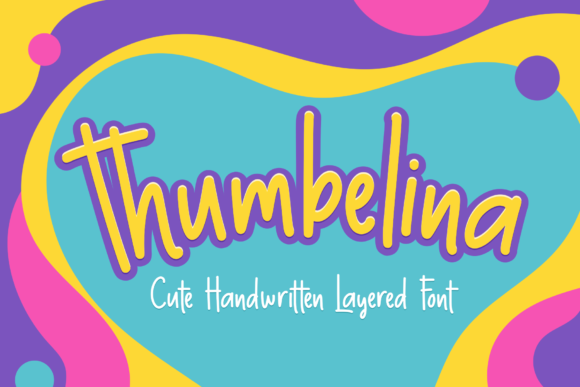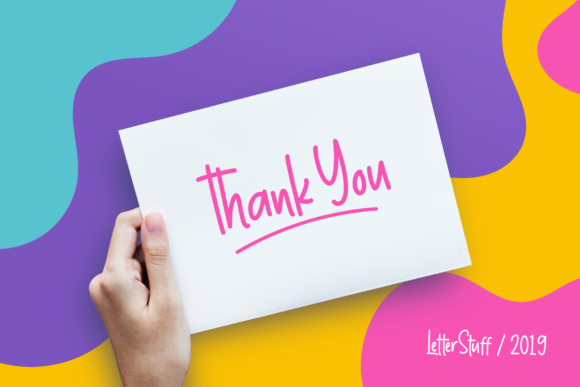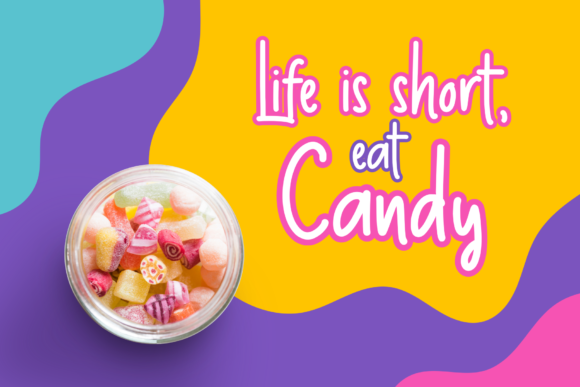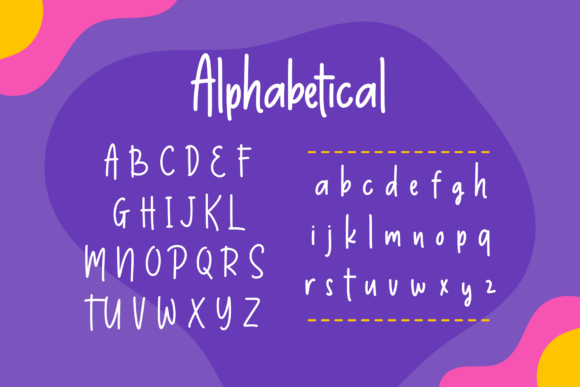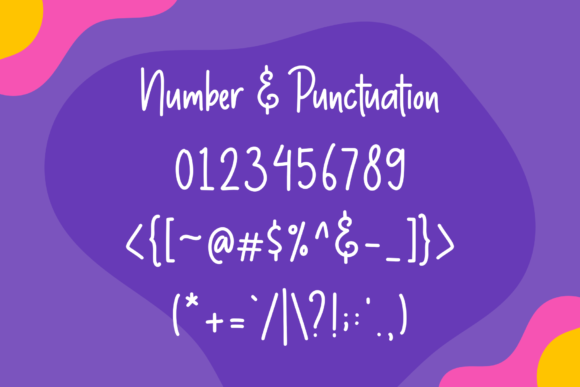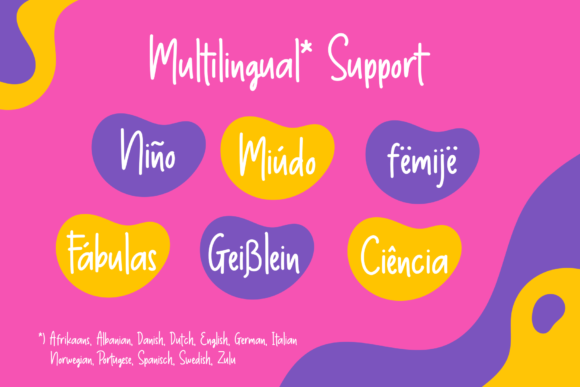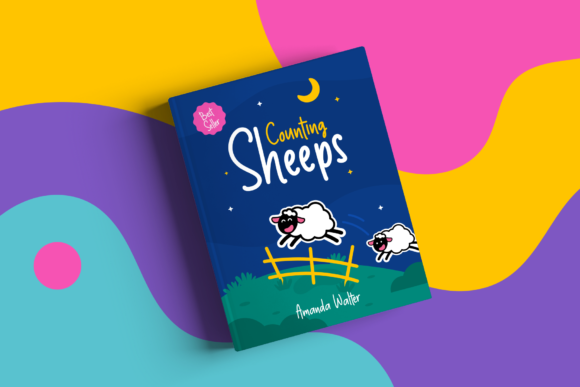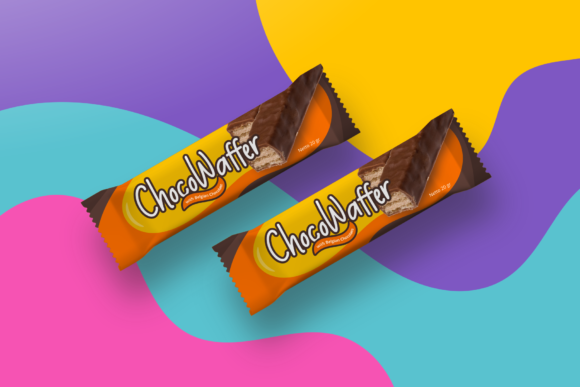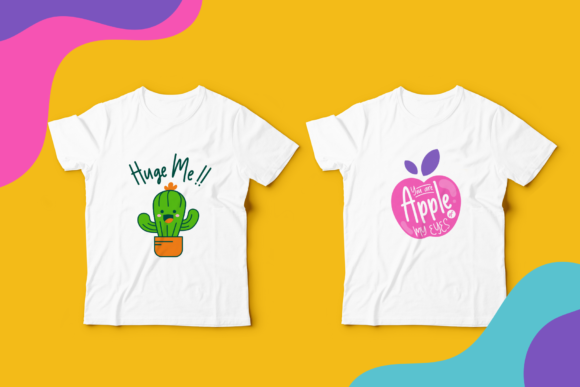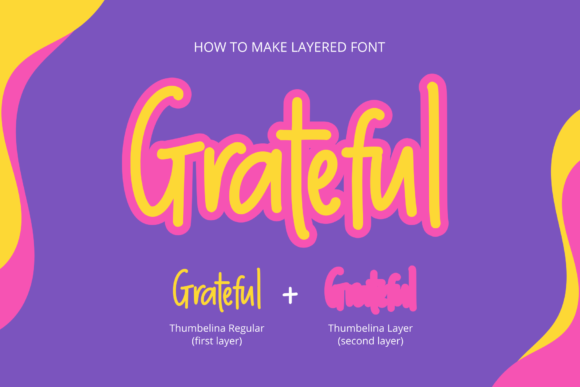
HomeScript FontsThumbelina Font Script Fonts Thumbelina Font FacebookXPinterestWhatsApp Thumbelina Font Poster 2 Thumbelina Font Poster 3 Thumbelina Font Poster 4 Thumbelina Font Poster 5 Thumbelina Font Poster 6 Thumbelina Font Poster 7 Thumbelina Font Poster 8 Thumbelina Font Poster 9 Thumbelina Font Poster 10 About Thumbelina Font Thumbelina is a sweet and friendly handwritten font with a cute feel. Get inspired by its unique charm! DOWNLOAD ON CREATIVE FABRICAThis font is sold and delivered by Creative Fabrica. Font Canyon may earn a commission if you buy through this link. People also explored Florania Font Qirtandy Fantasia Font Bunny Honk Font Stylish Font Mellow Heart Huntteret Font Rubish Tinarasa Font Marryliane Font 311 0 TagsThumbelina Font Previous articleBafaco FontNext articleHello Signature Font LEAVE A REPLY Cancel reply Comment: Please enter your comment! Name:* Please enter your name here Email:* You have entered an incorrect email address! Please enter your email address here Website: Save my name, email, and website in this browser for the next time I comment. Personal Use Free Droid Personal Use Free Read more about this font Vanchrome Personal Use Free Read more about this font Wanita Cantik Personal Use Free Read more about this font Cinderella Personal Use Free Read more about this font BLOG Elegant Wedding Invitation Fonts – Handwritten & Script Fonts Elegant Wedding Invitation Fonts Your wedding day is one of the most important moments of your life, and every detail matters—including your invitation design. Our... Using Fonts in Digital Marketing: Tips to Strengthen Your Brand Identity How to Install and Use Fonts on Windows, macOS, and Web Projects Modern Sans-Serif Fonts That Brands Love in 2025